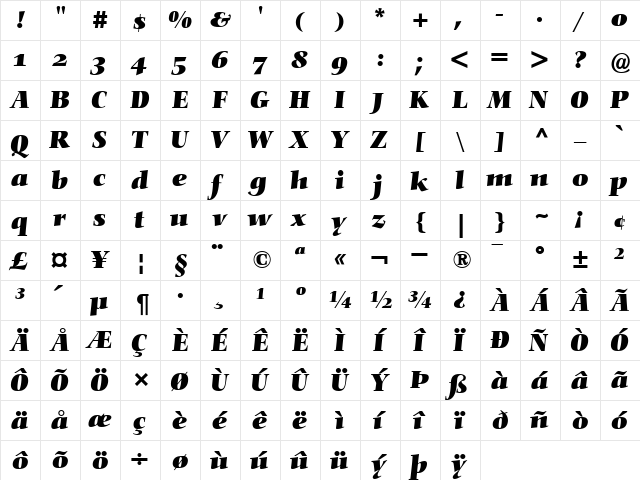
NofretOldstyleFigures BoldItalic Font Preview
NofretOldstyleFigures BoldItalic
Design Context for NofretOldstyleFigures Typeface
NofretOldstyleFigures brings classic typographic sensibility to the table — its serifs and measured letterforms reflect centuries of print heritage. The dynamic lean of this cut emphasises speed and emphasis in any layout. Its bold stroke weight gives it real presence on the page.